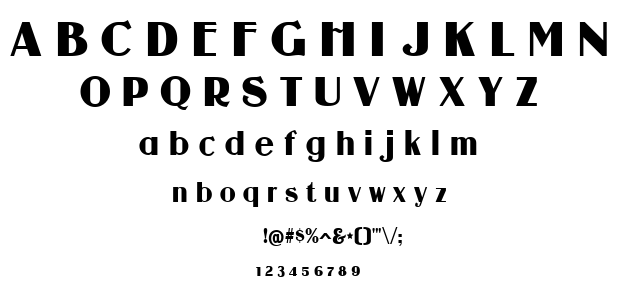
Guanine is an old timey display font inspired by lettering seen on an old bus. Don’t forget to read the files inside the zip for details. Updated in 2012.